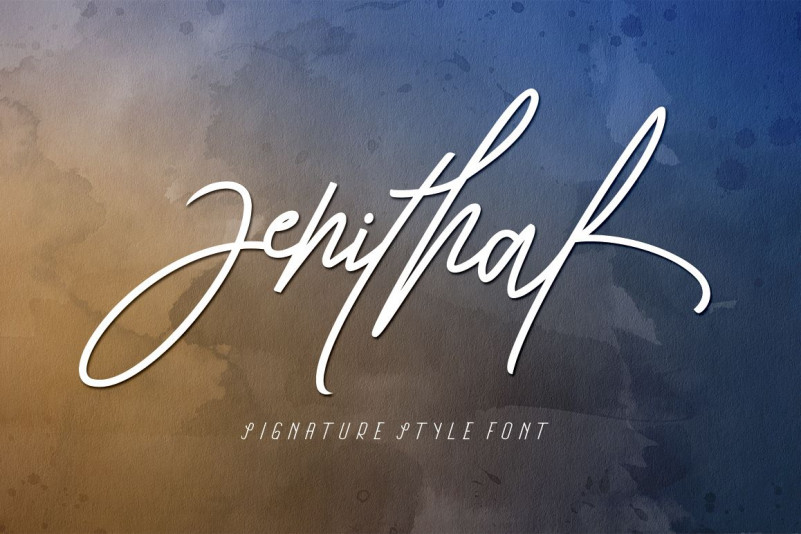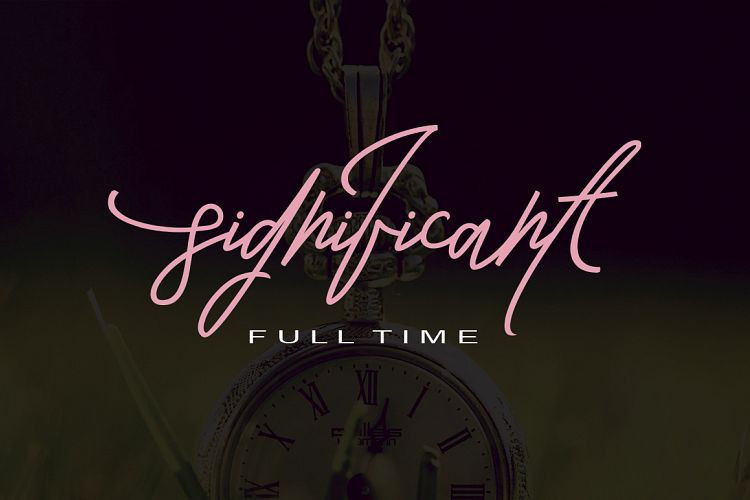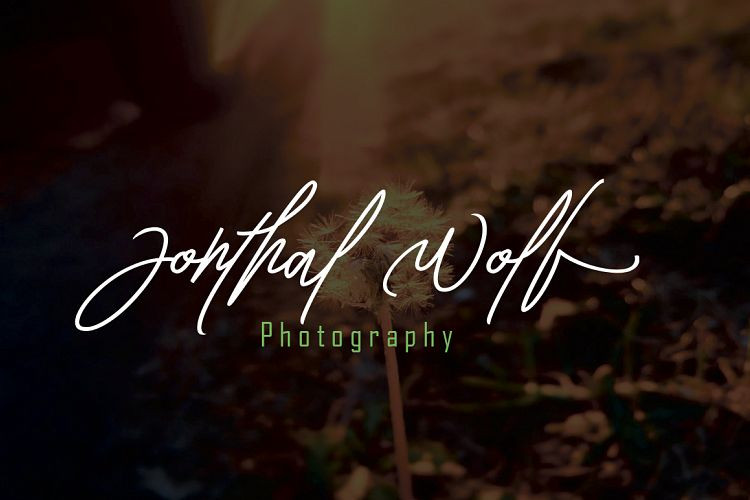
Zenithal Script Font
Introducing the newest else is so beautiful and comes with three very elegant fonts that are designed to compliment each other perfectly.